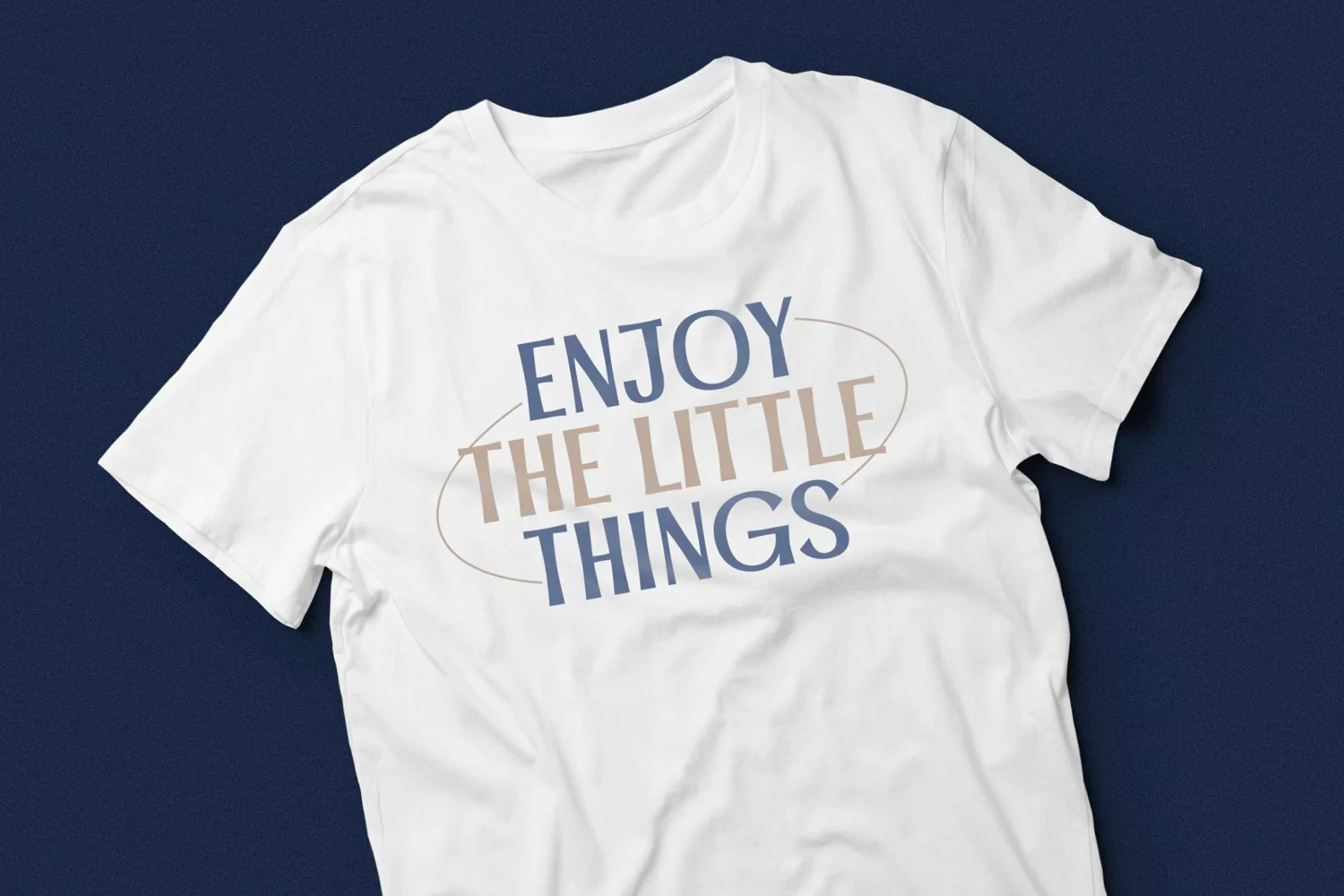
Backhaus is a new display typeface in all caps version with classic proportion on it. This style works well for branding projects, product packaging, product designs, label, watermark, invitation, photography, logo, wedding designs, social media posts, advertisements or whatever project you’re working on.